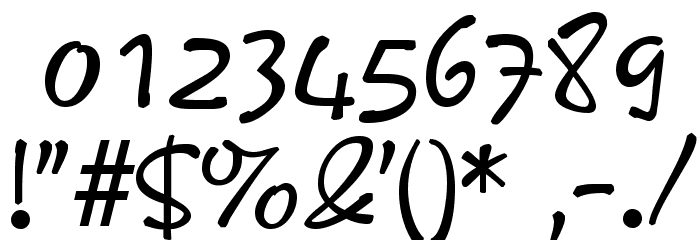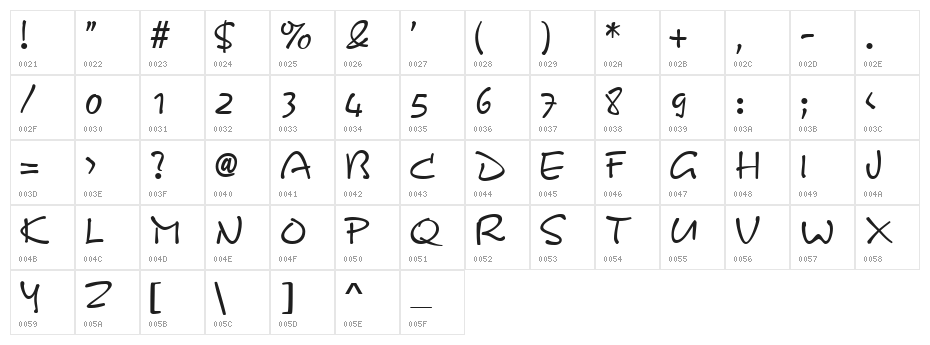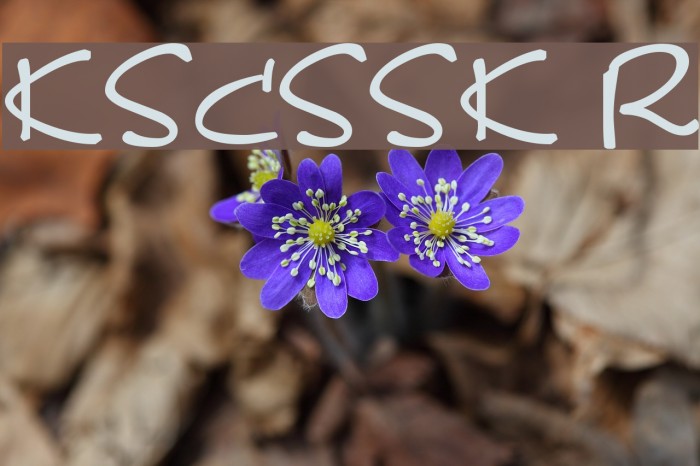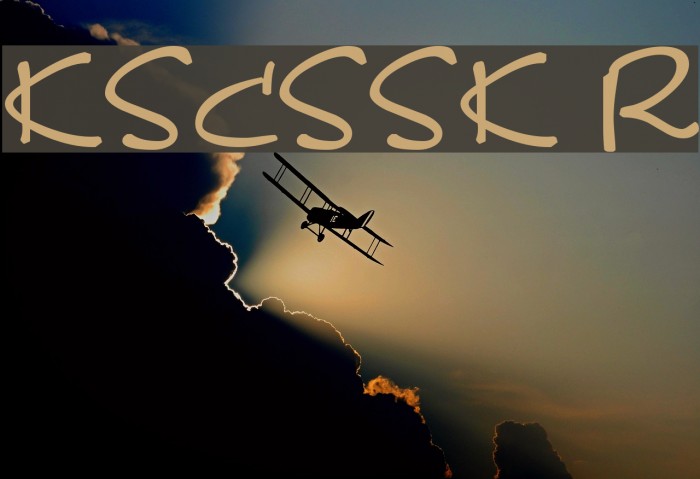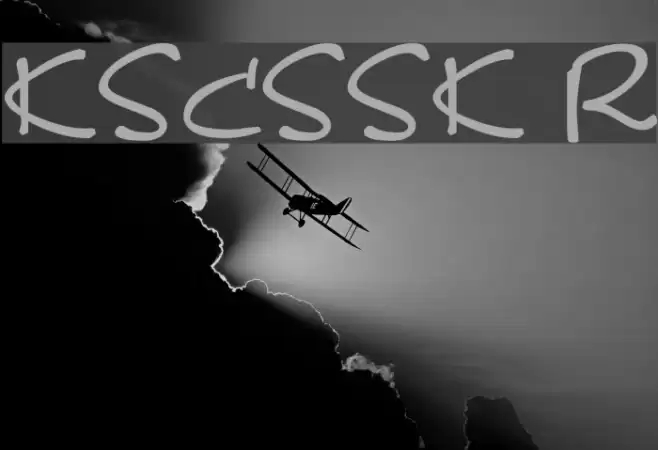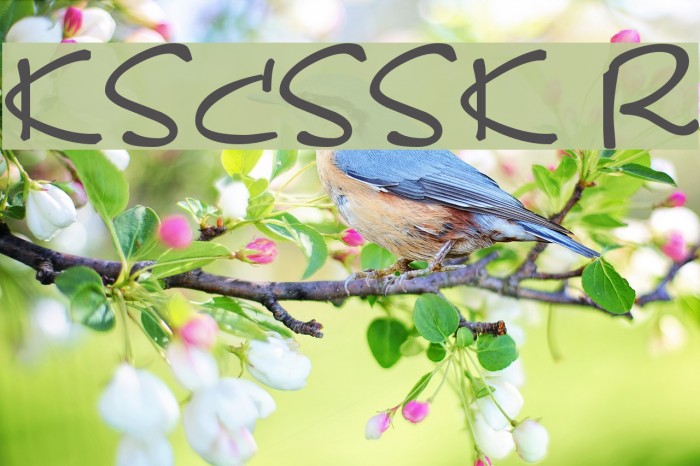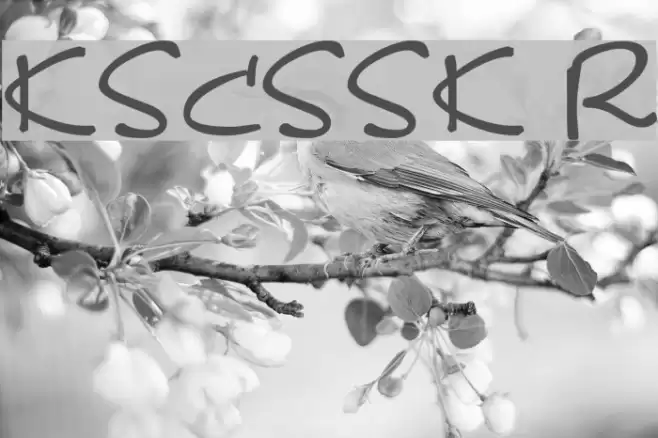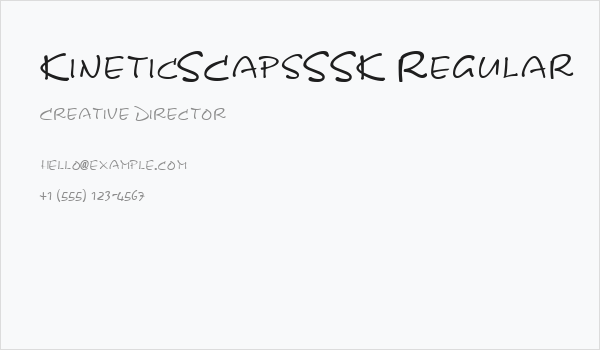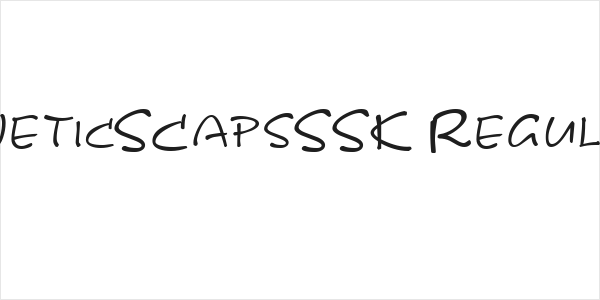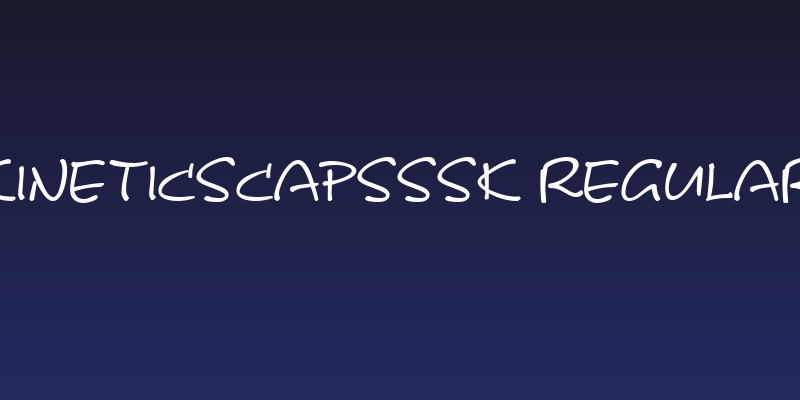
KineticSCapsSSK Regular Font
KineticSCapsSSK Regular Description
This font exhibits a playful and dynamic handwritten style, characterized by its fluid and casual strokes. The letters are slightly slanted, giving a sense of motion and energy. The uppercase and lowercase characters maintain a consistent style, with rounded edges and a natural flow. The numerals are bold and easily distinguishable, complementing the overall aesthetic. Special characters are integrated seamlessly, maintaining the font's cohesive look. This font is ideal for projects that require a personal touch, such as invitations, greeting cards, or creative branding.